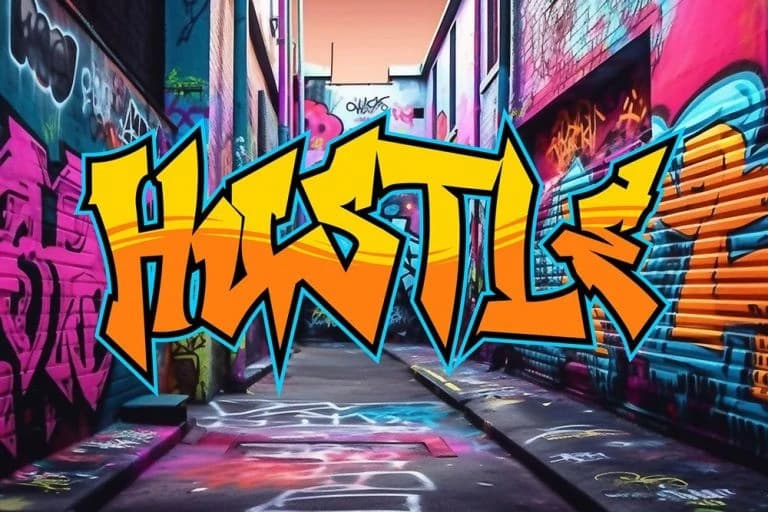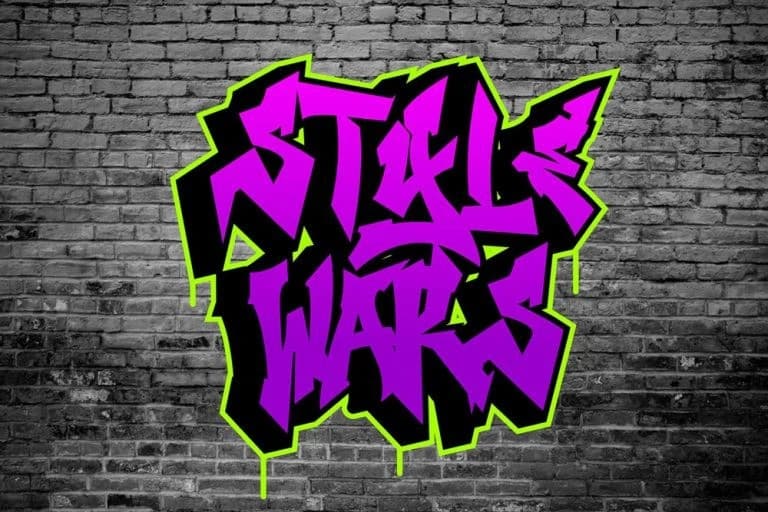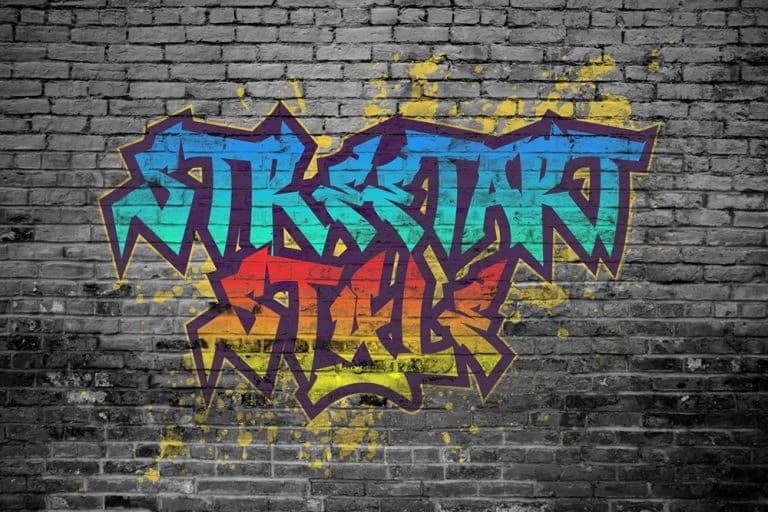
Lord Jamet Font
Lord Jamet Font – Wild Graffiti Font, a bold and energetic typeface crafted for creators who want to bring authentic urban vibes into their designs. This graffiti font is inspired by raw street tagging culture, combining dynamic strokes